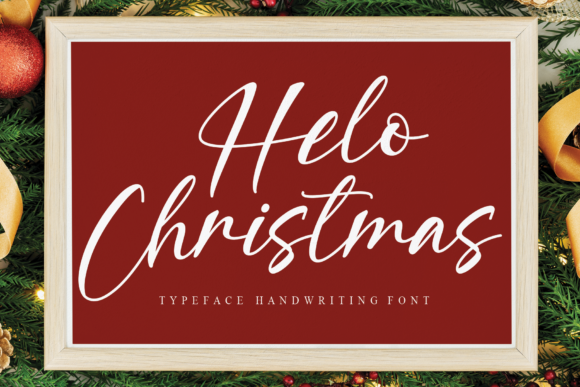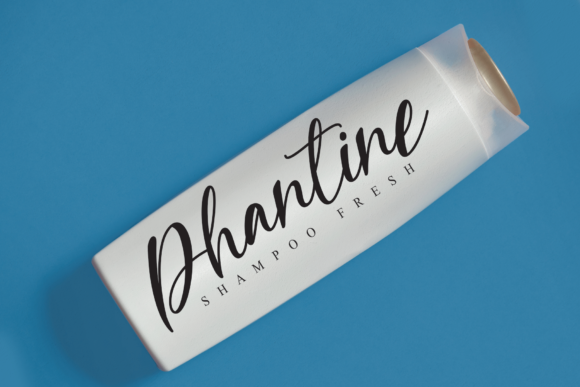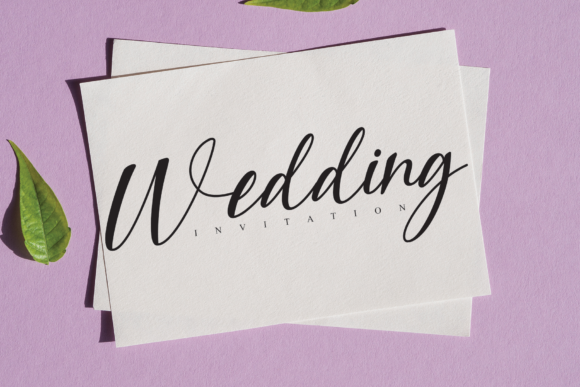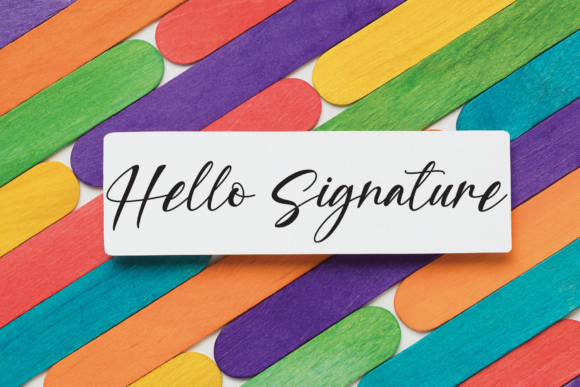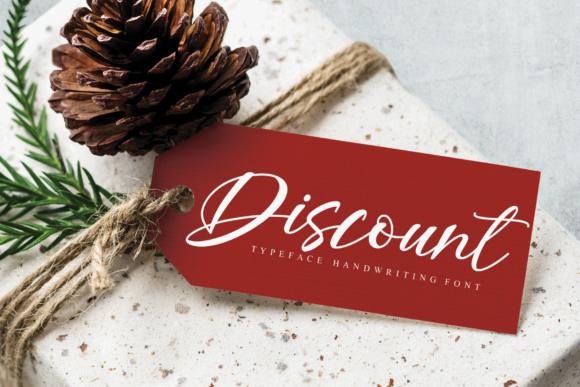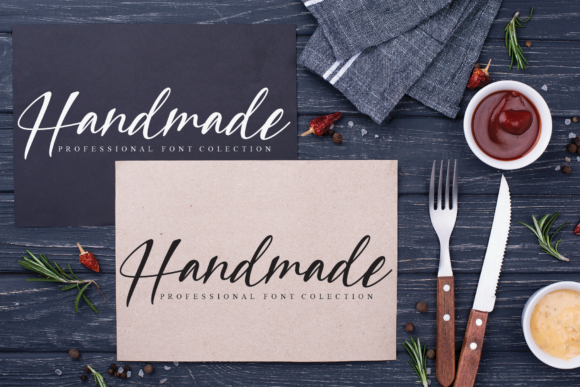
The Perfect Touch: Elevating Your Designs with Agellia Benitta Font
Have you ever stared at a blank canvas, pen in hand, trying to bring a design to life? The struggle is real, but the excitement of creation is what drives us as designers. It’s that moment when the perfect font comes along and makes everything fall into place. For those who crave a touch of elegance and sophistication, we introduce the Agellia Benitta Font – a stylish and delicate handwritten font that’s sure to elevate your designs.
Agellia Benitta Font is more than just a font; it’s a key to unlocking your creative potential. With its clean and smooth vibe, it’s the perfect addition to any design project. Whether you’re working on branding, product packaging, or a quote, this font is sure to make your work stand out. As a designer, you’ll appreciate the versatility and value that Agellia Benitta Font brings to your projects.
Agellia Benitta Font Key Features
- Font Family: Agellia Benitta Font is a unique script font designed to add a touch of elegance and sophistication to any design.
- Unique Characteristics: Agellia Benitta Font features a beautiful, hand-drawn design with intricate details and subtle flourishes, making it perfect for creating visually striking headlines and titles.
- Character Set: The font includes a wide range of characters, including uppercase and lowercase letters, numbers, punctuation marks, and special characters, making it suitable for both body text and display text.
Agellia Benitta Font Review
Overall, I think the Agellia Benitta Font has some great qualities, but it also has some limitations that may make it less suitable for certain projects.
- ✨ The font has a unique and elegant feel to it, making it perfect for high-end branding and luxury projects.
- ✨ The font is highly legible, even at small sizes, which makes it suitable for body text and long blocks of copy.
- ✨ The font has a wide range of weights and styles, making it easy to customize and match to different design needs.
- ⚠️ The font may be too elegant and luxurious for some projects, making it seem out of place in more casual or playful designs.
- ⚠️ The font can be quite difficult to read in certain contexts, such as at very small sizes or on low-resolution screens.
Overall, I think the Agellia Benitta Font is a great choice for projects that require a high level of sophistication and elegance. However, it may not be the best choice for more casual or playful projects. With careful consideration and use, this font can be a real showstopper.
Agellia Benitta Font is ideal for:
1. Creative projects that require a unique and elegant font.
2. Branding and logo design.
3. Wedding invitations and stationery.
4. Luxury product packaging and marketing materials.